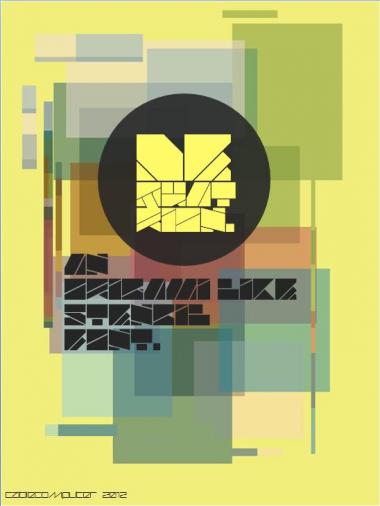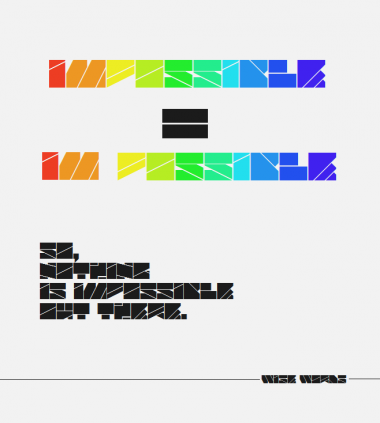
Dequatrion
by cablecomputer
My first entry for Stencilcomp! Still needs improvement especially for numbers...
Samples coming as soon as possible...
Excellent! Love the E.
Initially I found it hard to read ... but, once I had tuned my eyes in, I like it. 10/10
Love it!! The x is cool! 10/10 + fave
Awesome in its non-standardness.
U is my fav.
My personal favourite. This is just briliant. It reminds a lot of folded paper, but gosh, it still preserves it's amazing techno appearance. Gotta make a remix when the StencilComp is over. 10/10 + fave.
One more thing... zeros often appear as slashed, but the slash goes from lower left to upper right, unlike yours. Just a tiny hint.
Brave abstraction, also has that origami feel, 10/10!
I'm with the people. Great point of view and great consistence, IMHO, but some glyphs are a little bit harder to read.
Very, very cool, even if some glyphs are a bit hard to recognize, but that may be the nature of stencil.. 10/10!
@architaraz: About "some glyphs that are a bit hard to recognize", that's what I want to improve. There's a lot of possibilities and I hope this font would be finished before the time ends.
great work very futuristic, one of my fav
11/10 & fav - absolutly love the first sample!
Beautiful XXX-bold font. 8-)
damn. is this GOOD!!! extremely difficult to create harmony and sophisticated shapes with so few lines. this is huge.